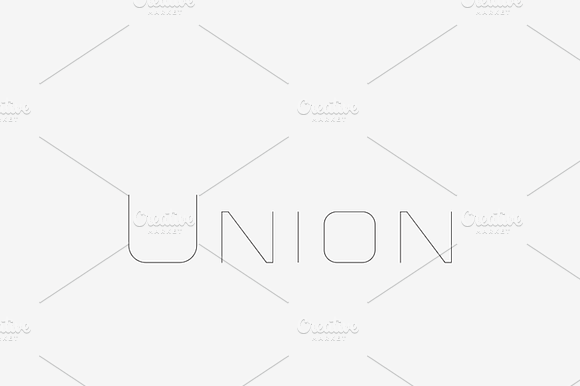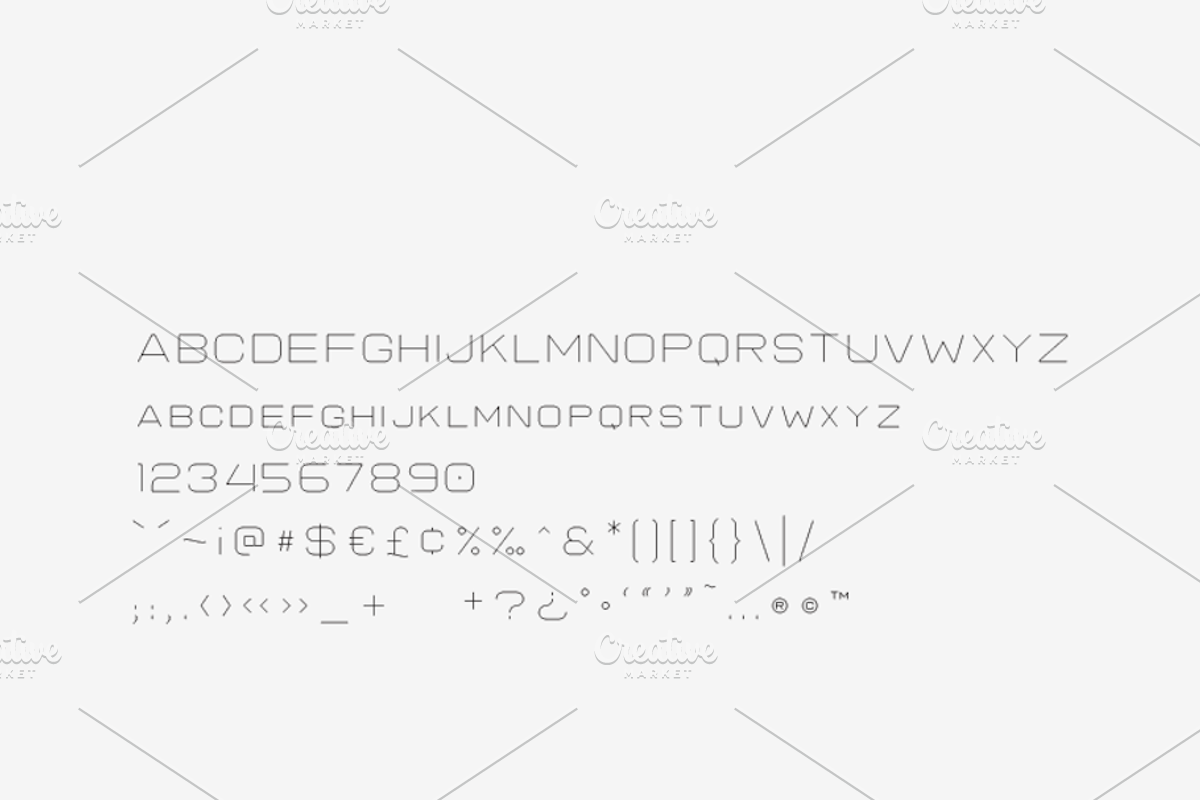
UNION - Laser, Craft Cutter Font
Union is a versatile, wide typestyle, designed to make an impact in headlines, titles, logos, and branding.
A New Level of Performance + Accuracy
From felt tip pen to laser etch, TrueStroke Single-Stroke Fonts' unique design dramatically increases performance, accuracy, and draw/cutting/burn times by 12 times faster than standard font images while forming a much smoother letter.
Engraving and etching type up to now has been slow, and many times the result is less than perfect. There are primarily two methods of operation, Raster, and Outline. Raster (raster or bitmap images are a dot matrix data structure that represents a grid of pixels) takes a great deal of time, and small letters can become muddled, the other option is to Outline the type - this also takes time, and many letters can become over-cut or over-burned.
The answer seemed to be simple. Single-line fonts, (also referred to as, engraving fonts or plotter fonts) are specifically designed for use when performing engraving or line drawing operations. The purpose of a single-line font is to reduce the actual font displayed to a single line. Though it may appear as if the font is a single line, the machine software may read it differently.
The issue remains that most operating systems that employ the standard font formats, TrueType & OpenType, (more commonly used in laser printers or other high-resolution devices), are limited to only reading fonts with closed paths. These closed paths only perform correctly on letters that are naturally closed like ‘0’, ‘O’ & ‘D.’
Single-line fonts WITHOUT closed paths may not display correctly, add stokes to create closed paths, or even expand without crucial lines. In any instance, single-line fonts are limited and unreliable.
TrueStroke Single-Stroke Fonts display and perform just like any other TTF or OTF font, though requires conversion/expansion to outline/wireframe creating the single-stroke vector image before sending it to your machine.